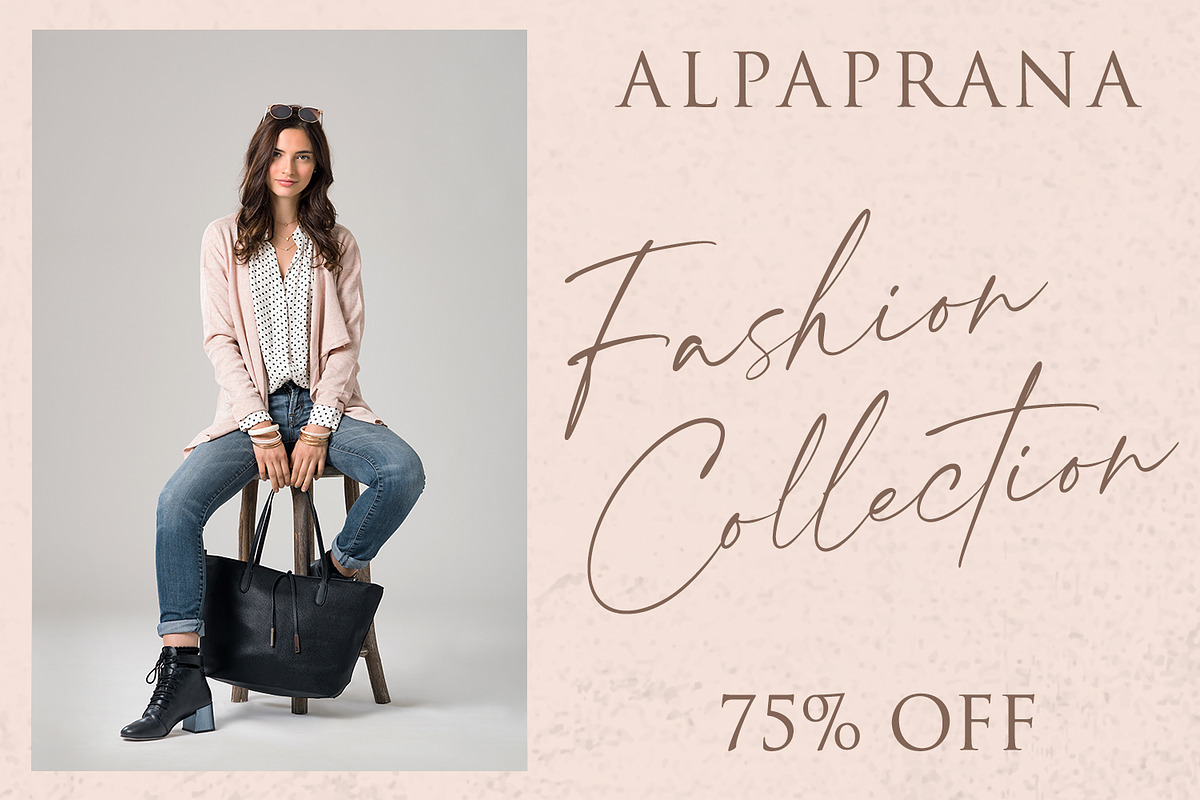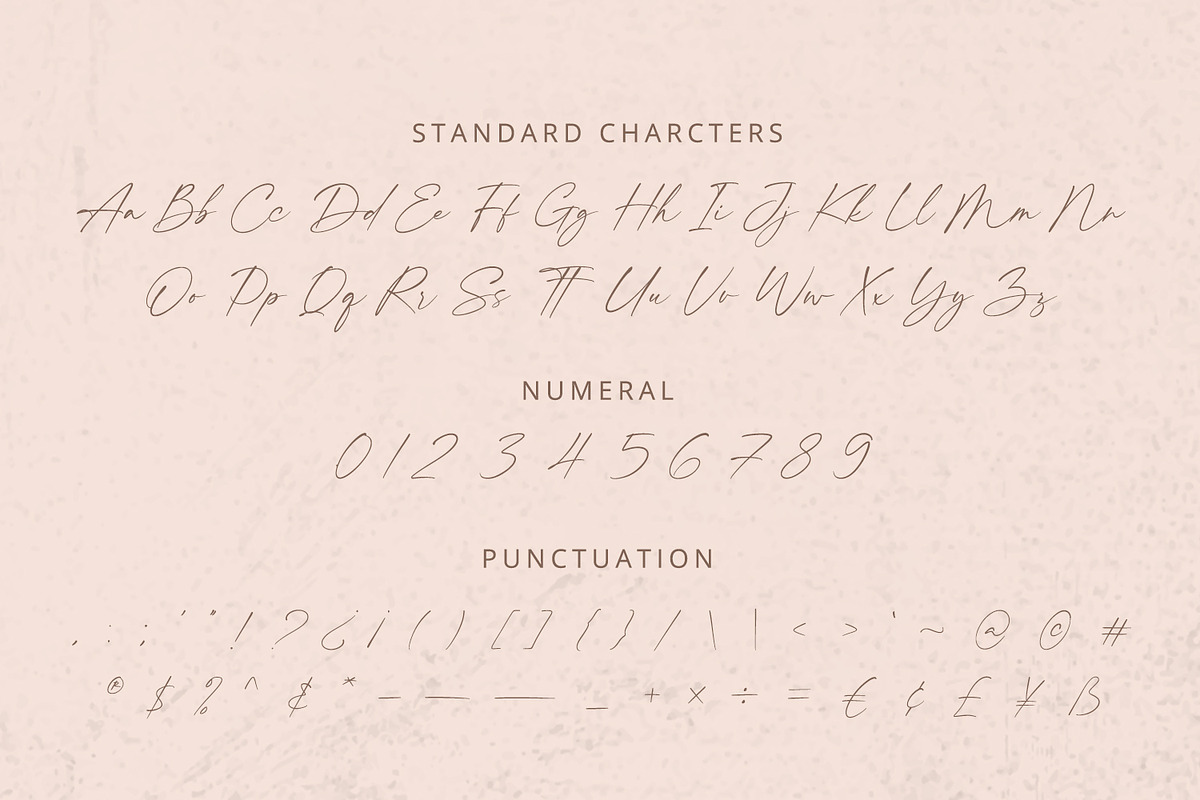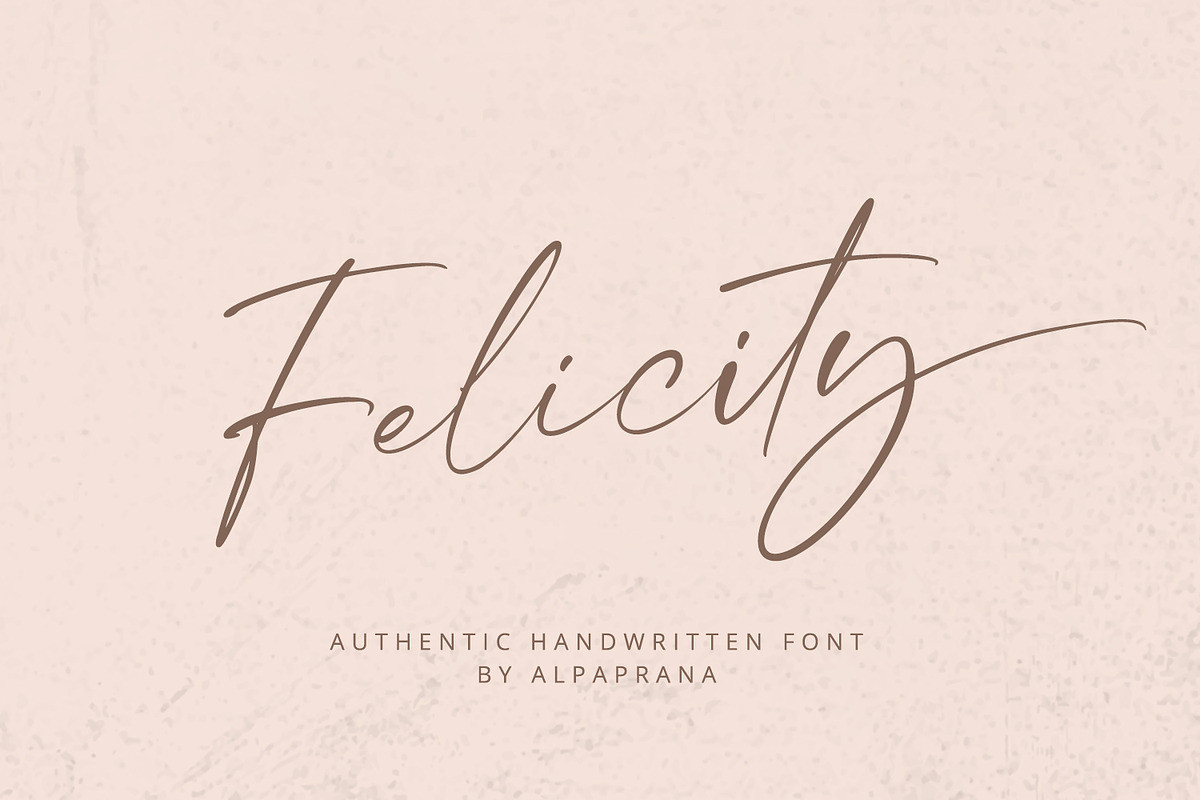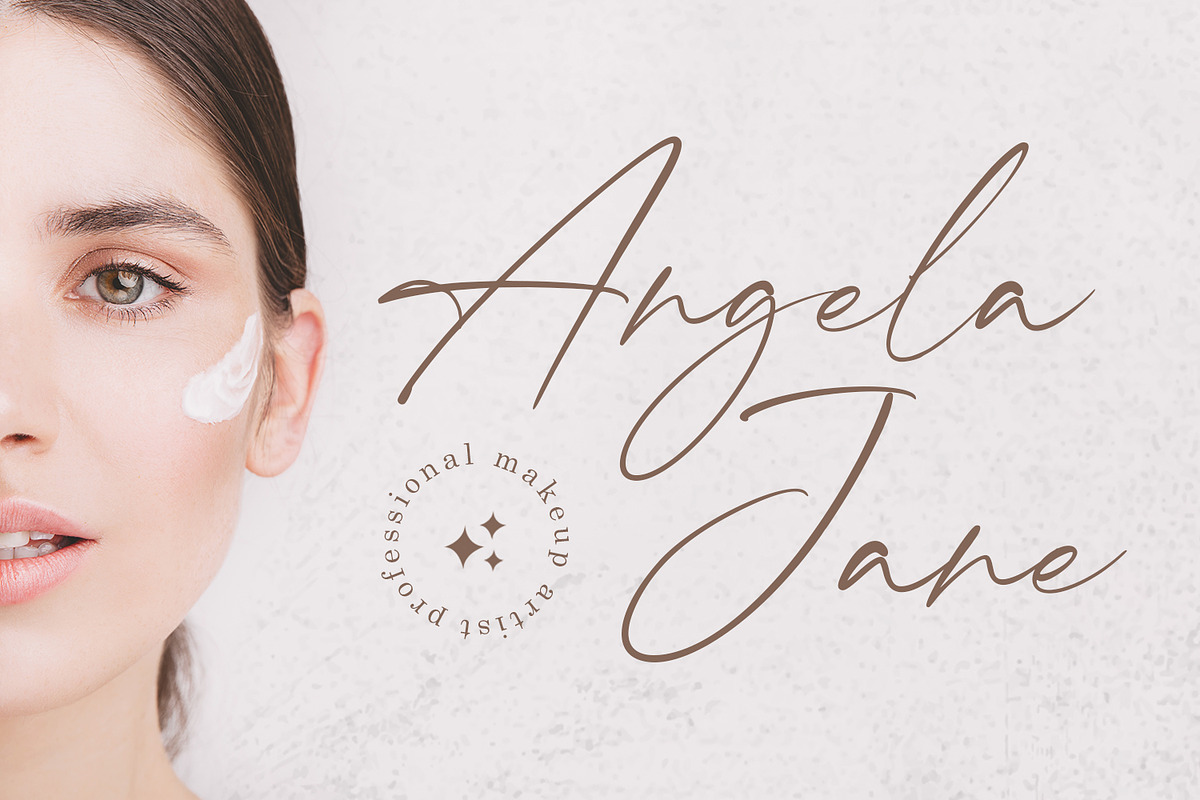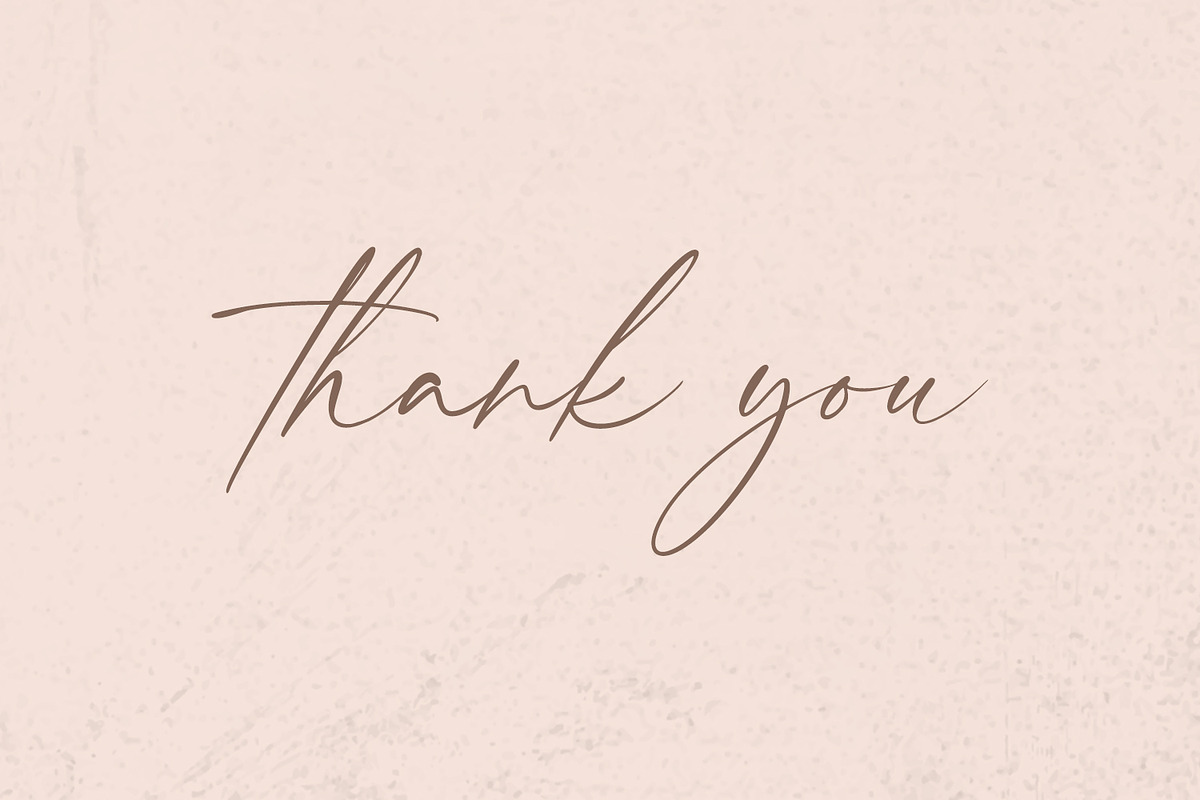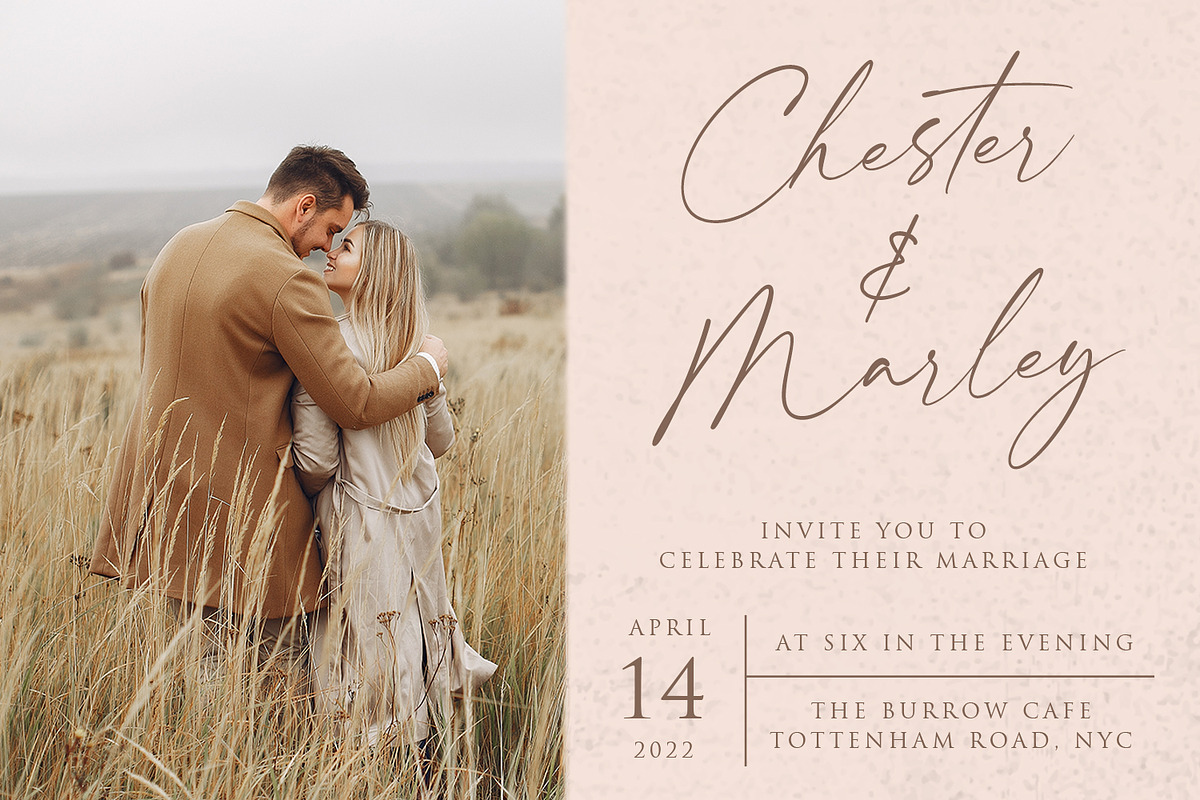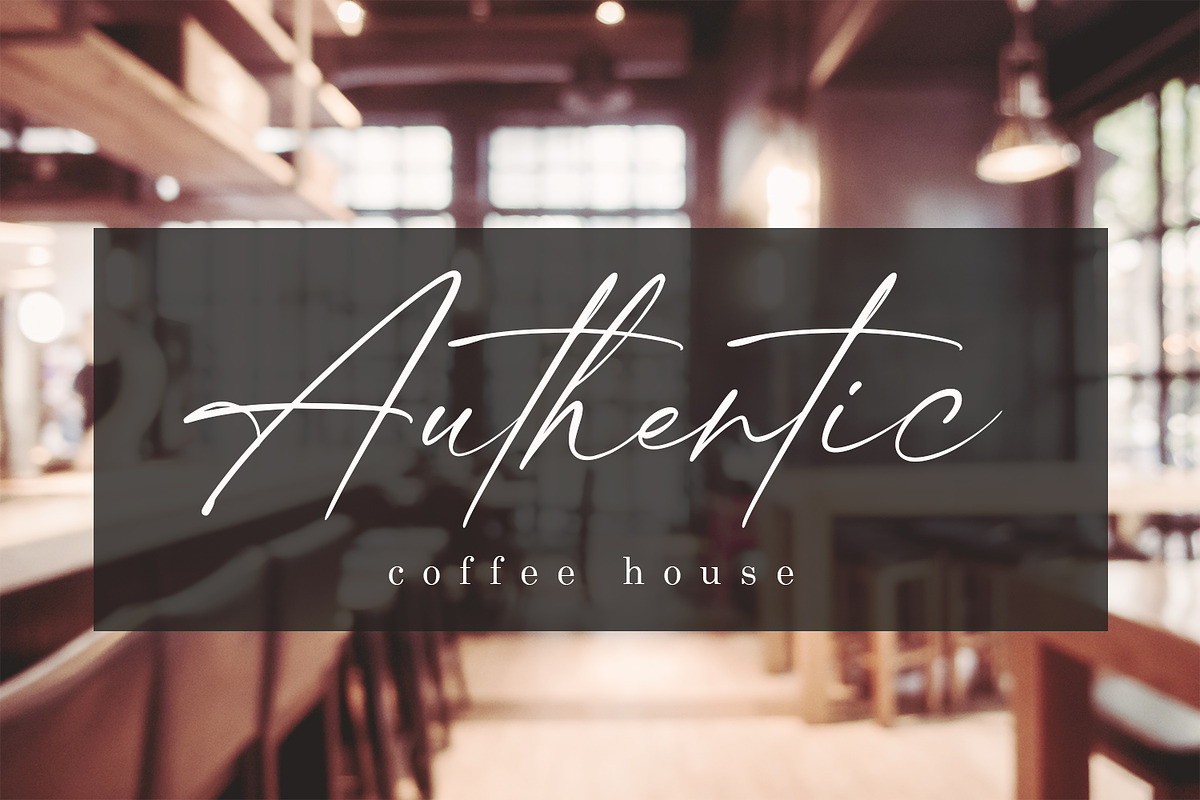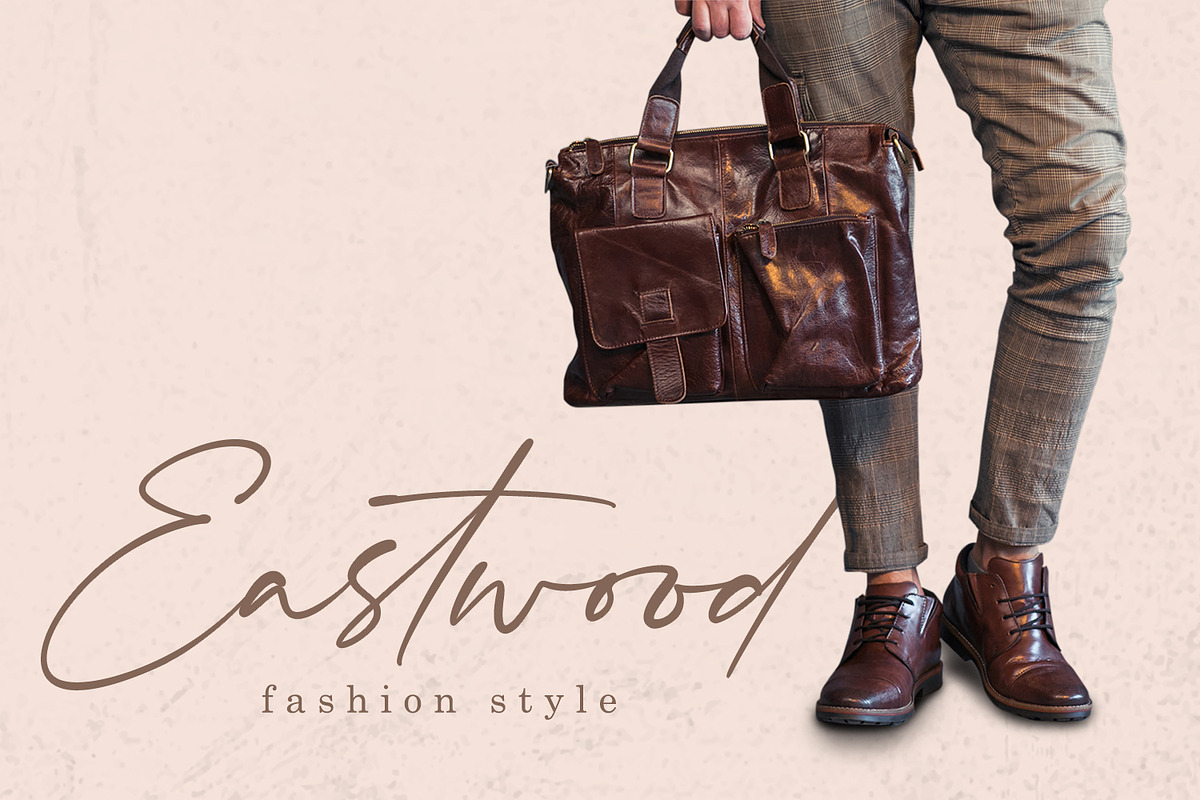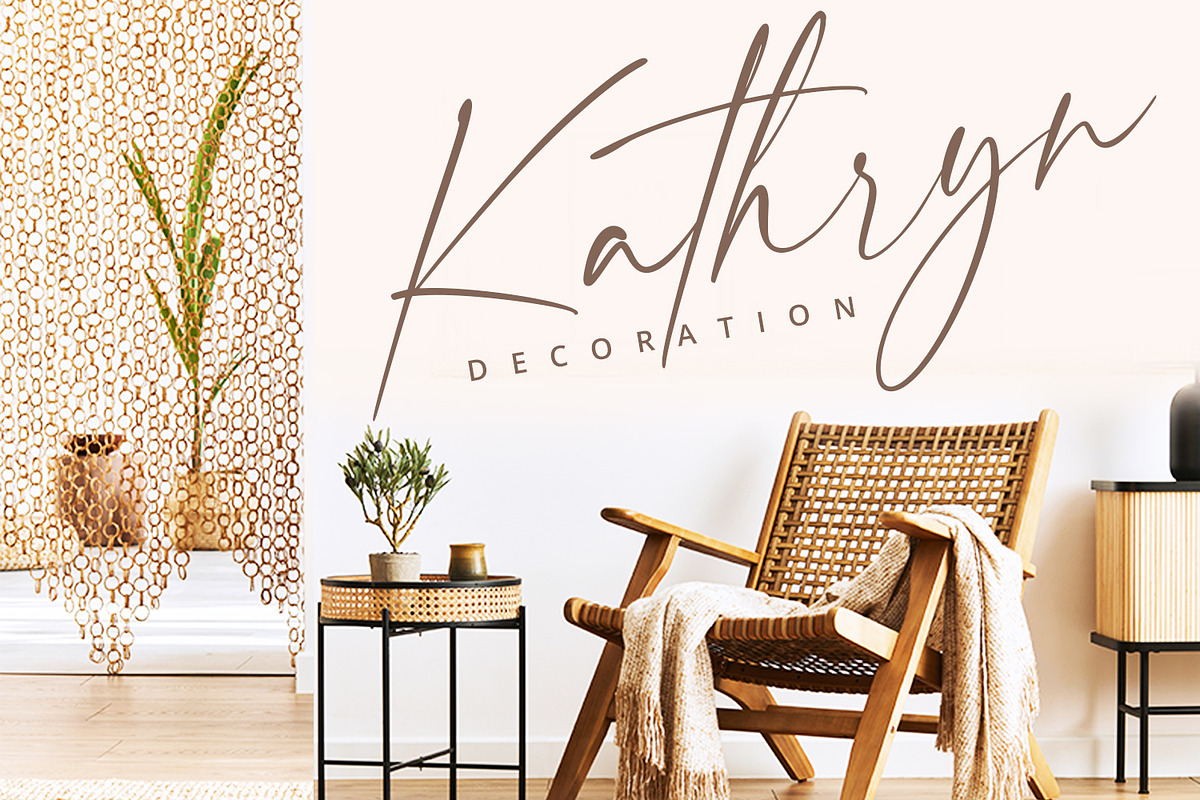
Felicity - Handwritten Font
Felicity is a stunning handwritten font with authentic and casual feels. It will be perfectly used for Branding, Logo Design, Lettering, Logotype, Clothing, Poster, magazine, packaging, posters, shopping bags, t-shirts, book covers, photography, special events and other design project.